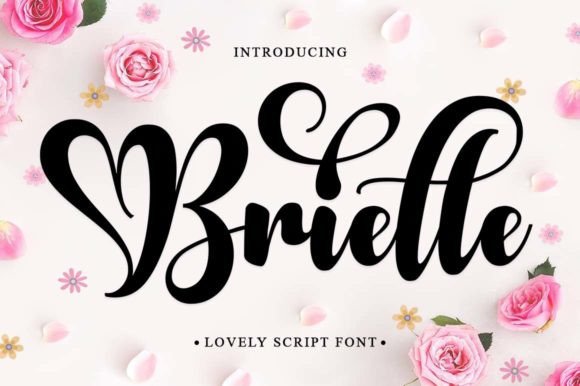
Introducing Brielle Font, an enchanting script font that will add a touch of timeless elegance to your creative projects. Whether you're designing wedding invitations, creating personalized gifts, or crafting social media posts, Brielle's smooth and flowing characters will leave a lasting impression.
With its graceful curves and delicate details, Brielle Font is a perfect choice for those who appreciate the beauty of handwritten typography. Its versatile style lends itself to a wide range of applications, making it a must-have for any font enthusiast's collection.
Fall in love with Brielle's captivating charm and let your creativity flourish. Its PUA coding allows for easy access to a world of glyphs and swashes, opening up endless possibilities for unique and eye-catching designs.
Brielle Font is more than just a font; it's an expression of your individuality and a reflection of your impeccable taste. Embrace its timeless beauty and watch your projects come to life with an allure that is both captivating and unforgettable.
So, whether you're a seasoned designer or just starting your creative journey, Brielle Font is the perfect companion to take your projects to the next level. Experience the magic of handwritten elegance and let your designs speak volumes.